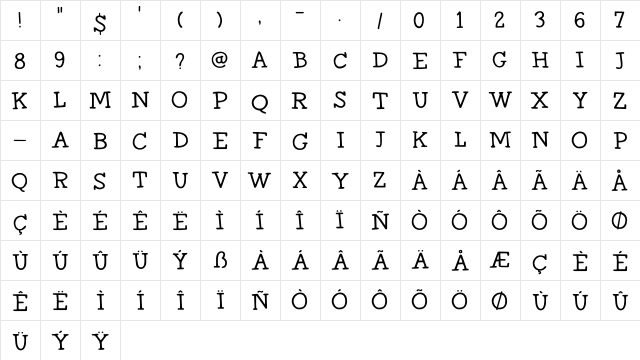
DK Homeward Bound II Regular
Design Context for DK Homeward Bound II Typeface
DK Homeward Bound II takes a measured approach to typography — its balanced proportions and neutral character make it a reliable workhorse for both digital and print work.